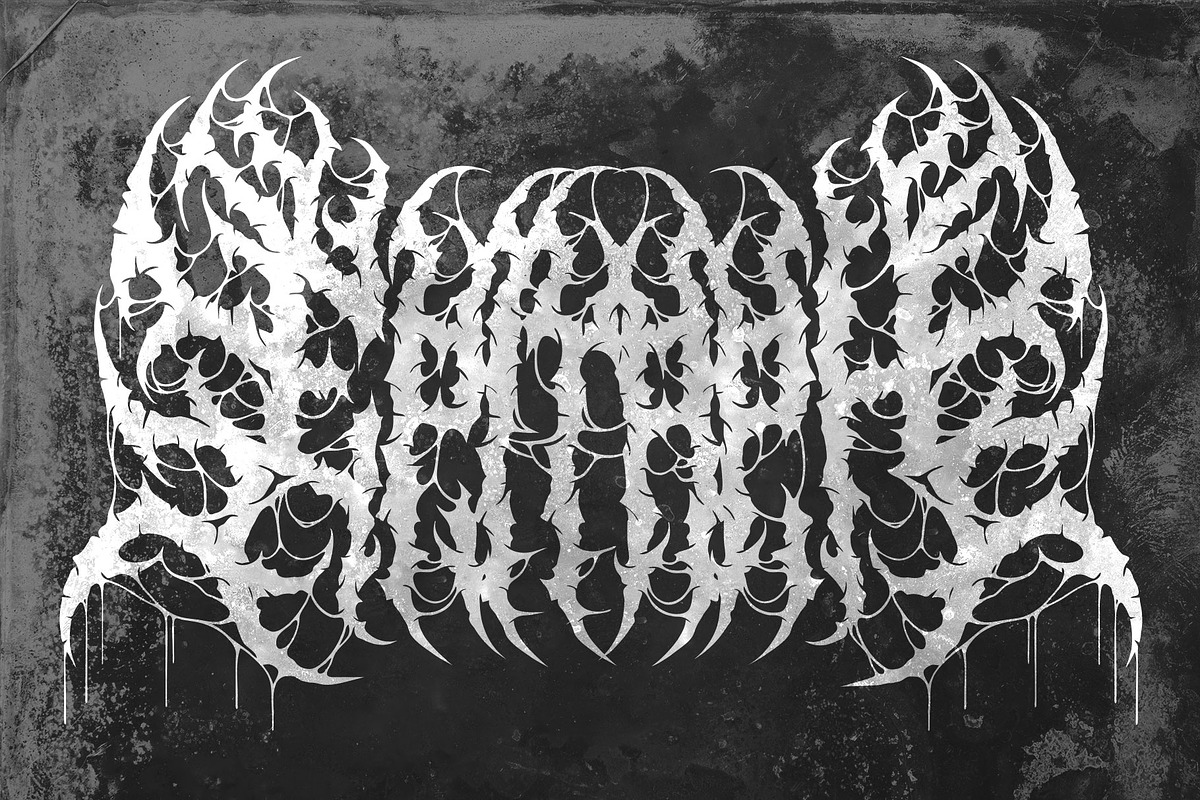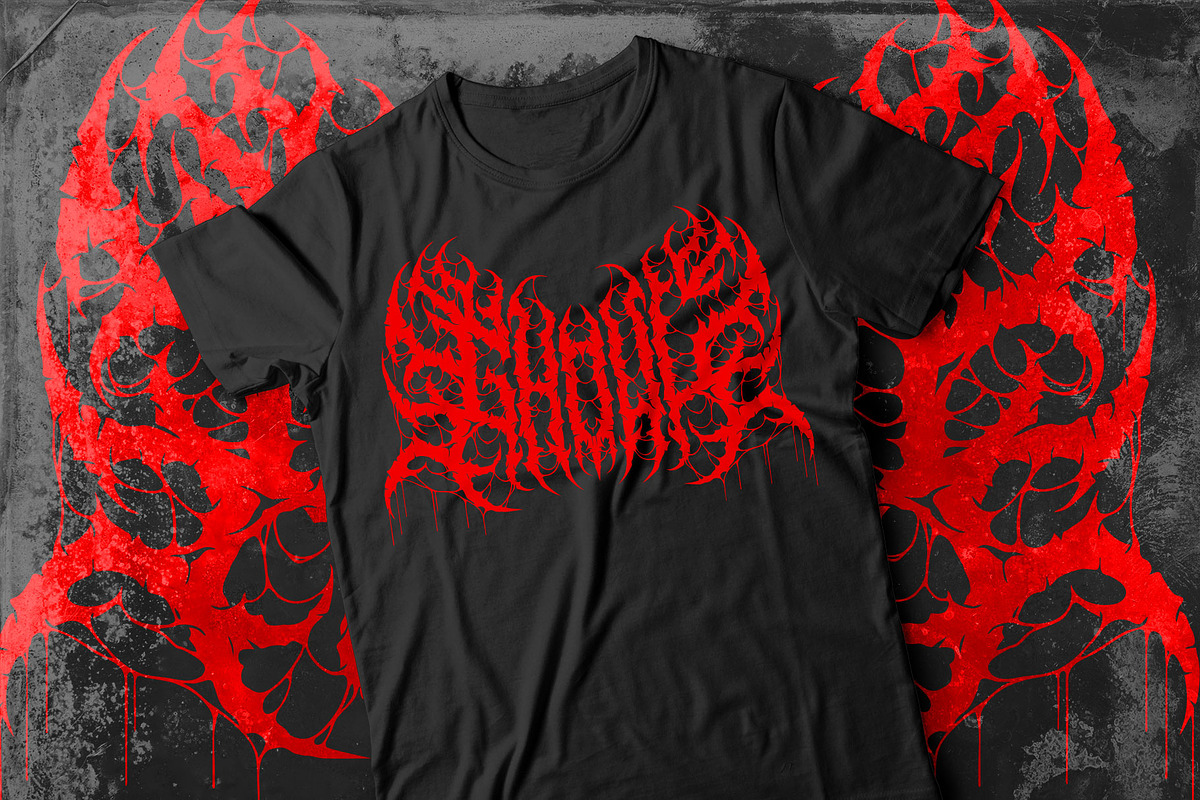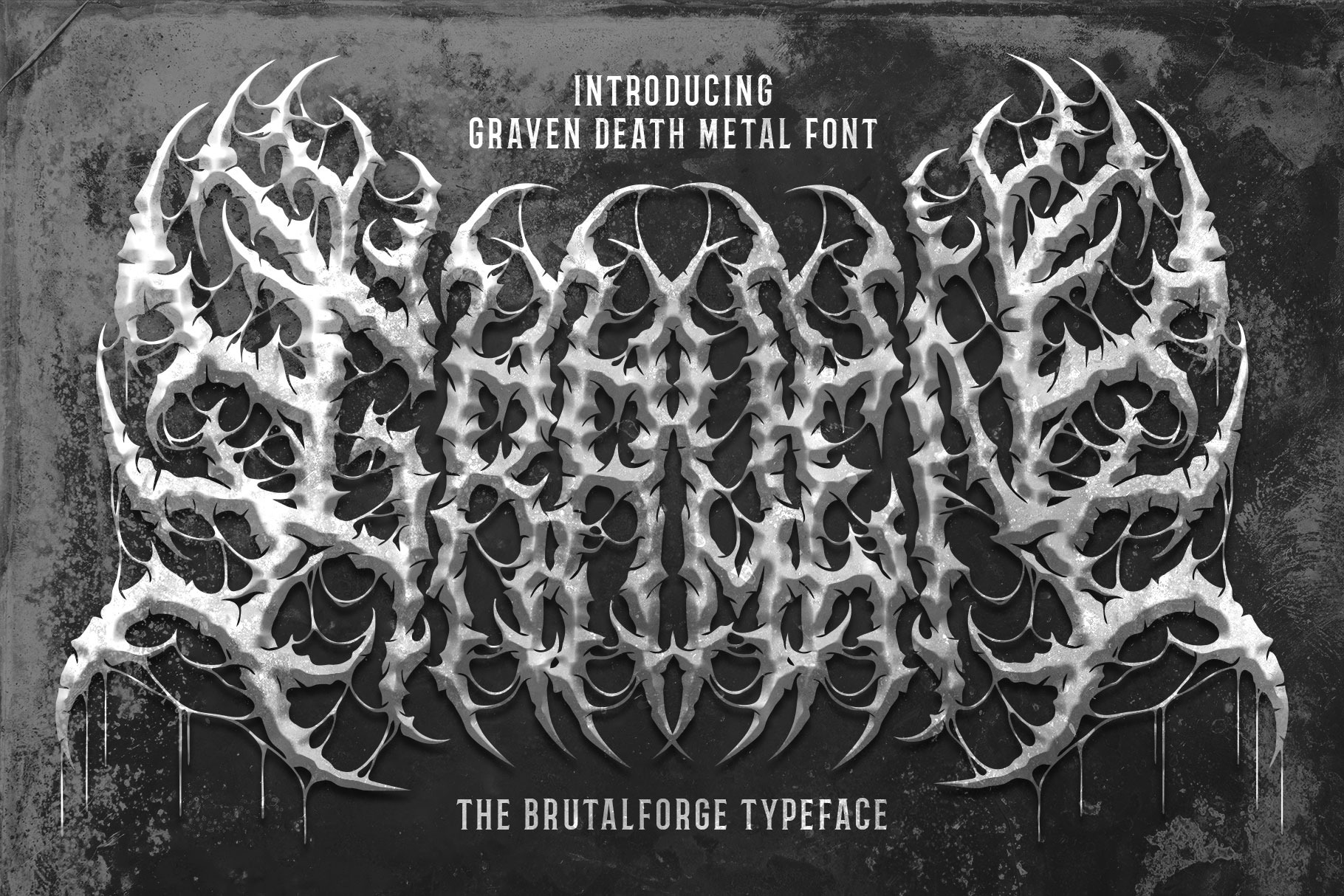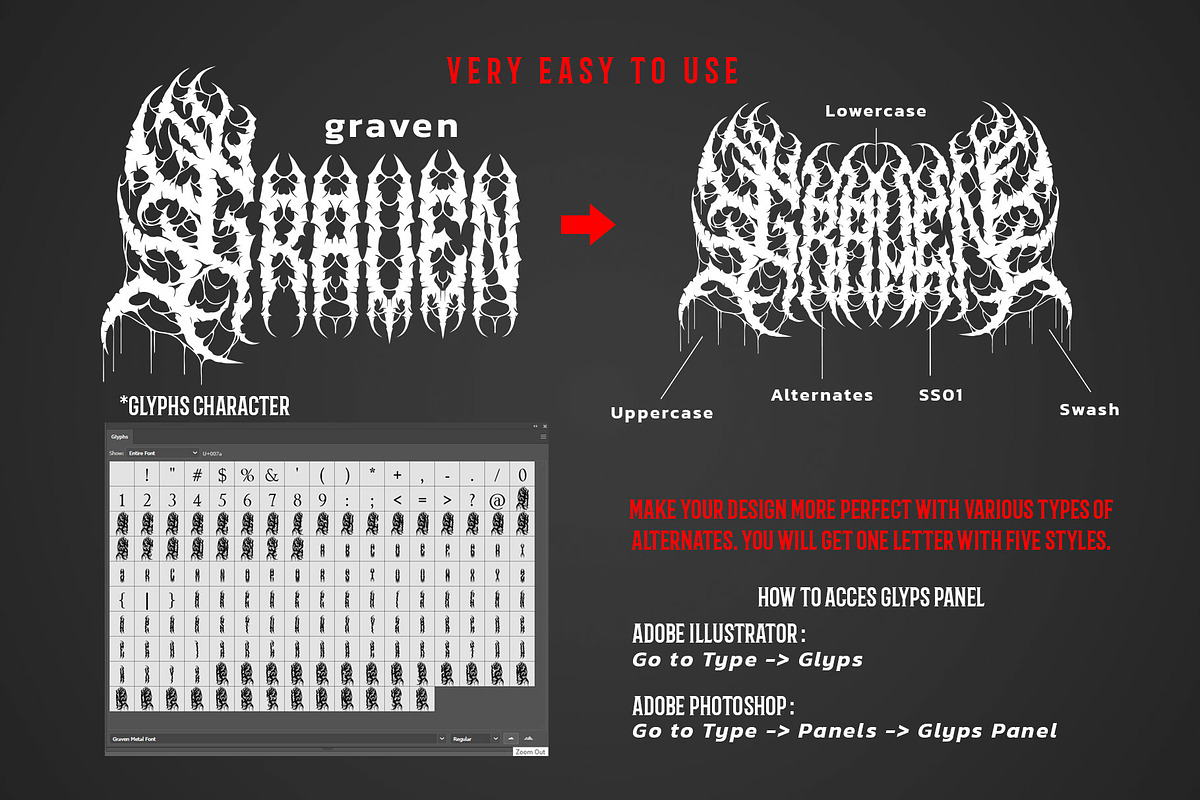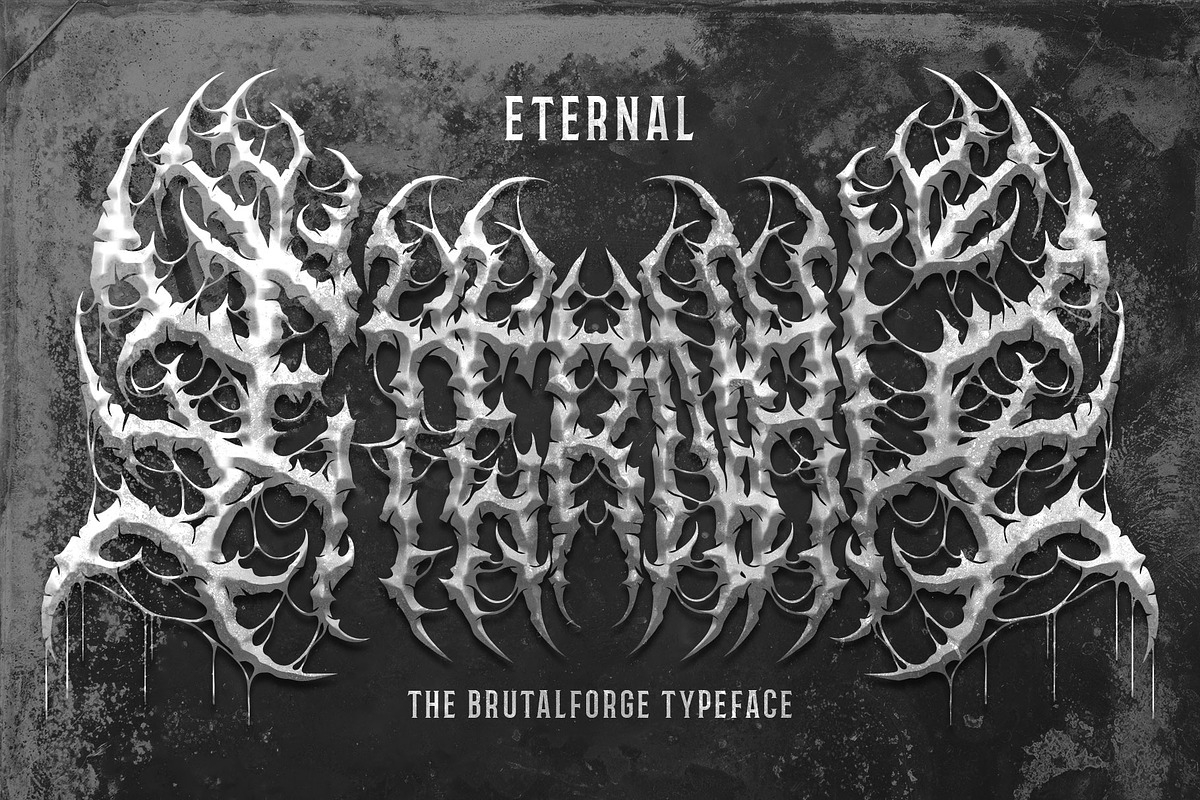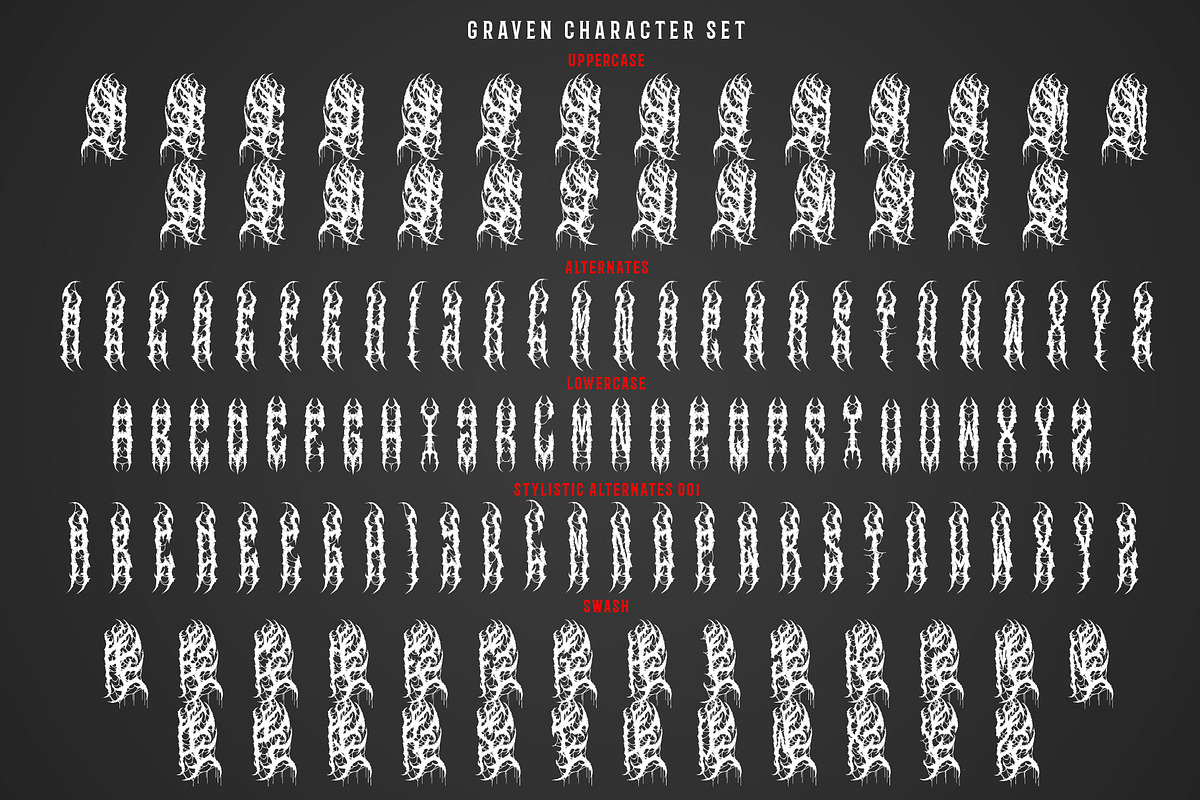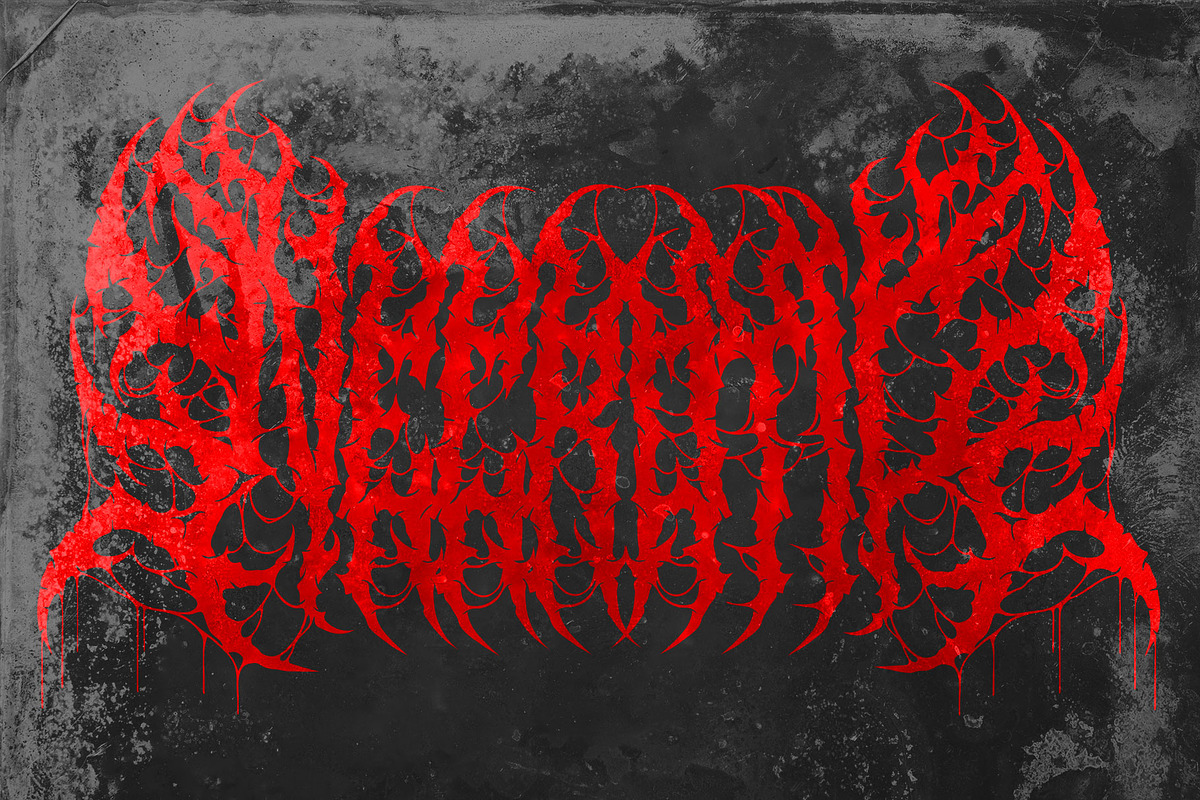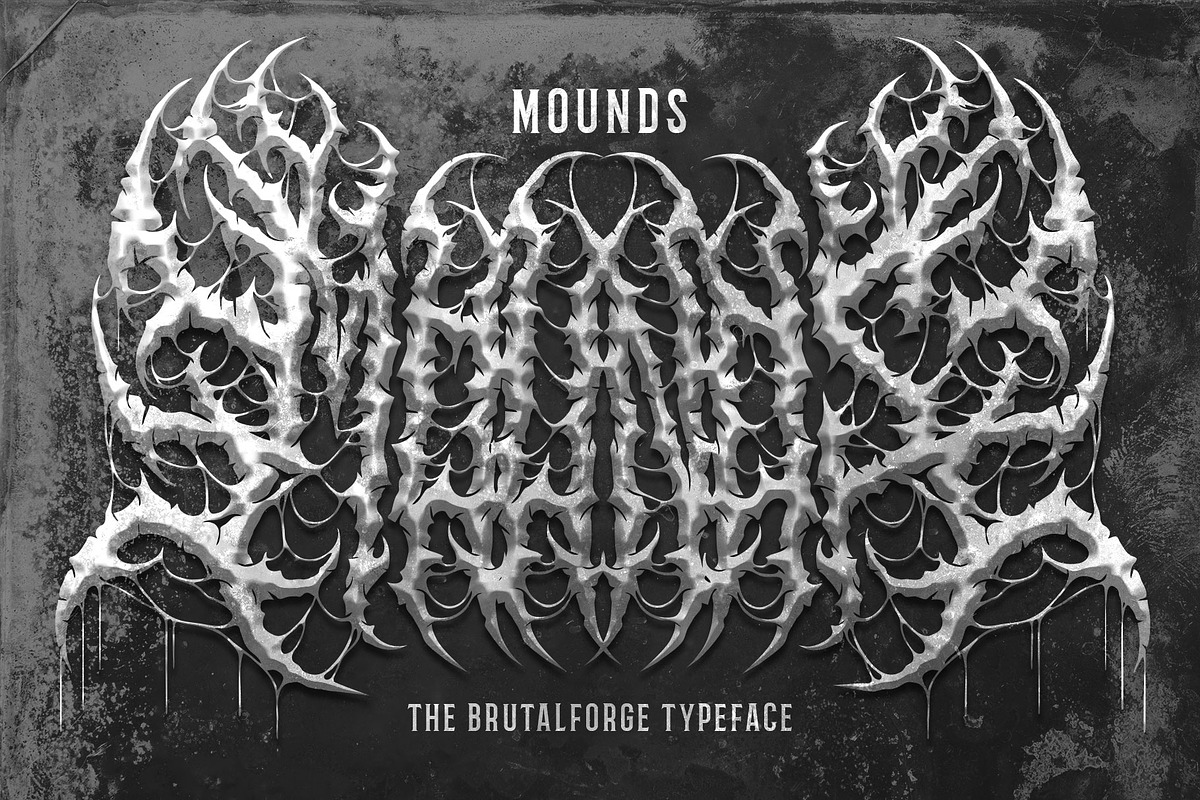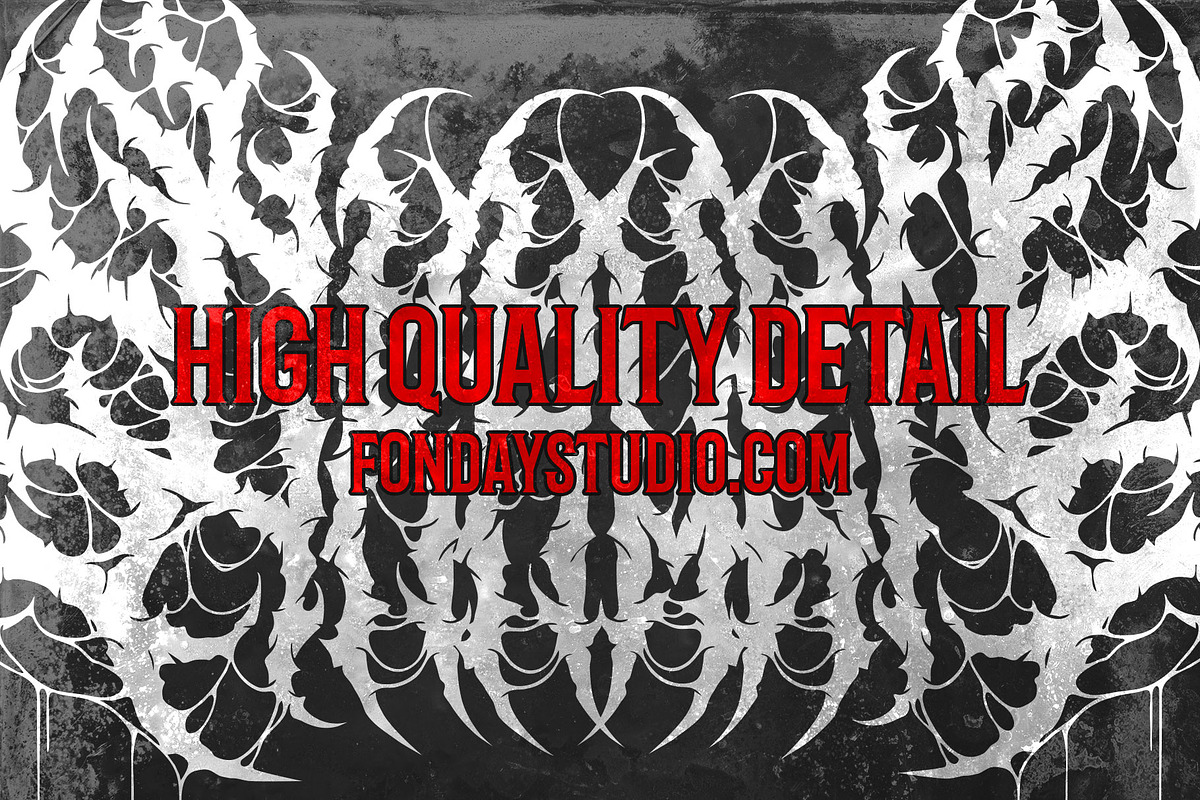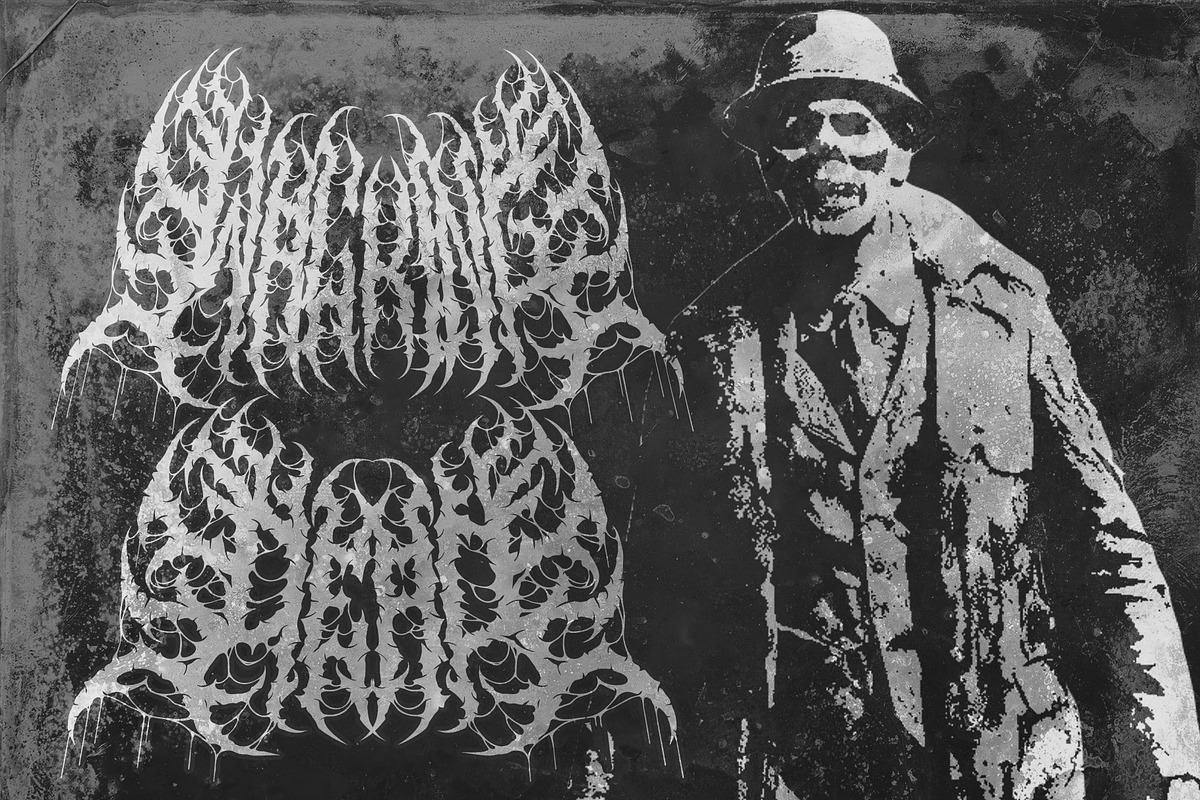
Graven Death Metal Font
🤘 Introducing Graven Death Metal Font: Carve Your Metal Identity with Unparalleled Detail! 🤘
Enter the realm of darkness with the meticulously crafted “Graven Death Metal Font.” This isn’t just a font; it’s an epitome of detail, uncompromising quality, and exclusivity.
✏️ Effortless Mastery: Graven makes design modification effortless. From posters and logos to t-shirt brands and album covers, wield the font with ease to manifest your dark vision.
- All Caps Character
- Stylistic Alternate